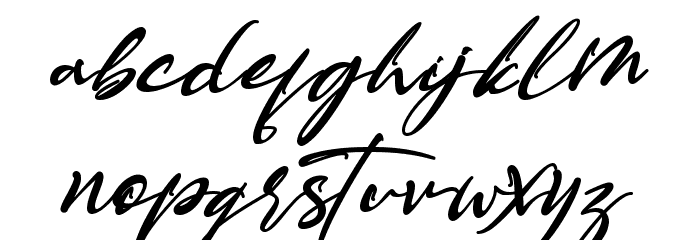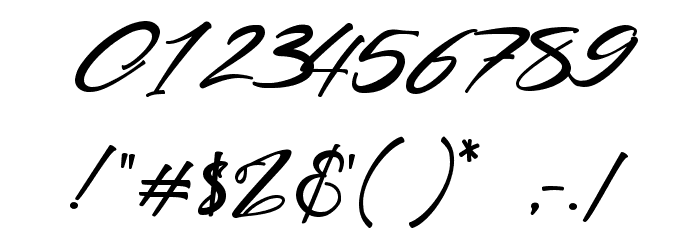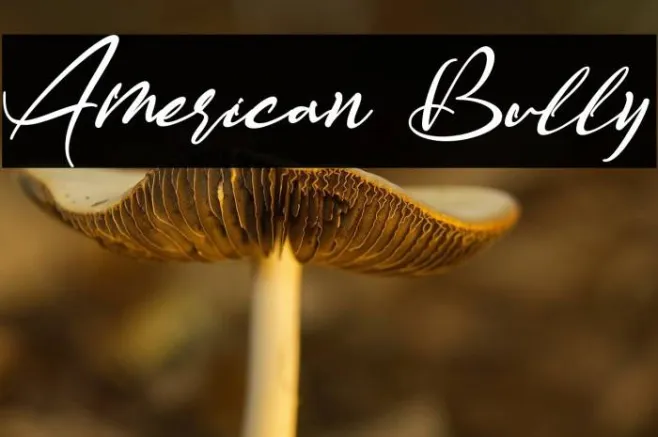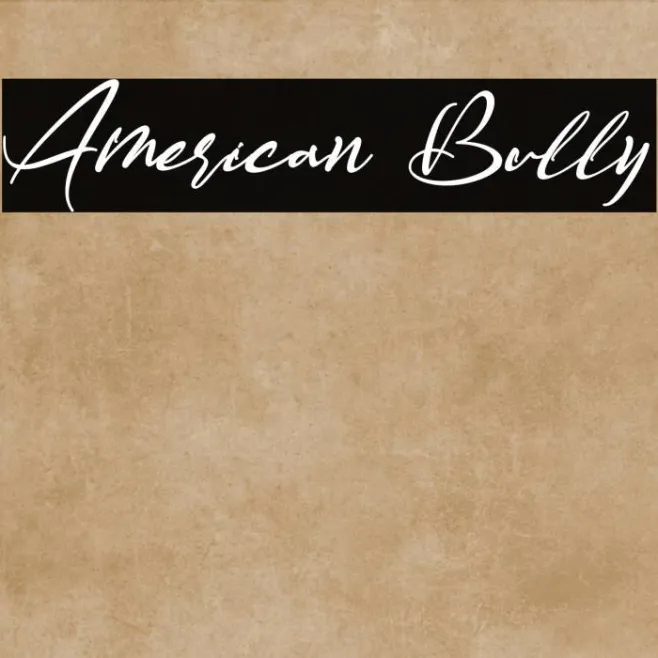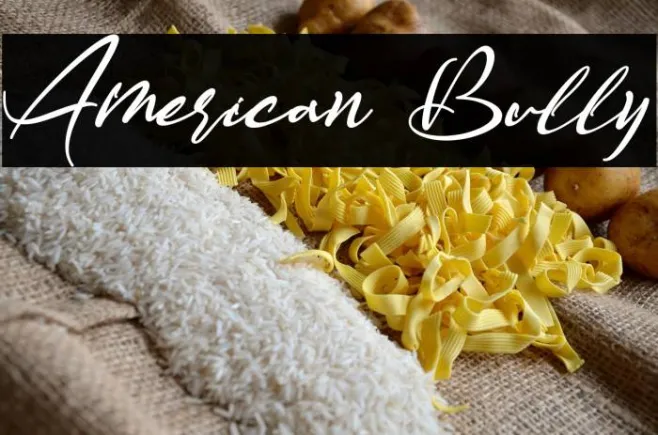
American Bully Font
This font exudes a dynamic and expressive style, characterized by its fluid, cursive script. The letters are connected with sweeping strokes, giving it a sense of motion and elegance. The uppercase letters are bold and prominent, while the lowercase letters maintain a consistent flow. Numbers and special characters are designed to match the overall aesthetic, ensuring a cohesive look. The font's artistic flair makes it suitable for creative and decorative applications.
A dynamic cursive script with sweeping, connected strokes.
- Proposed Projects: Ideal for wedding invitations, branding, and artistic projects where a personal touch is desired.
- Category: Script
- Character Spacing: Tight
- Use Case: Logos, Invitations, Artistic projects